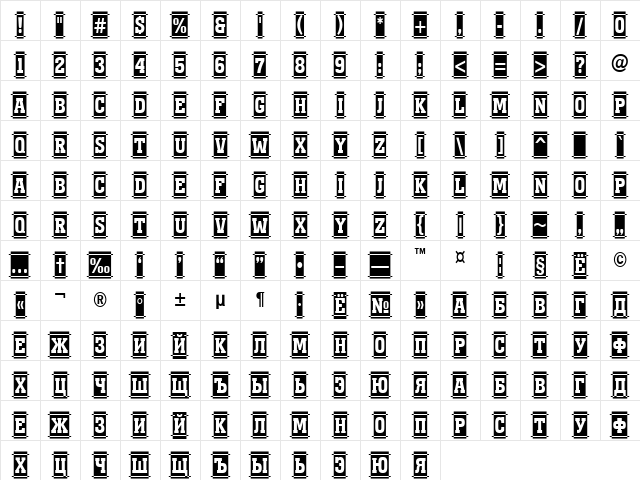
a_MonumentoTtlNrDcCm Normal Free Font
a_MonumentoTtlNrDcCm Normal
Design Context for a_MonumentoTtlNrDcCm
a_MonumentoTtlNrDcCm is a composed and adaptable typeface that performs quietly and consistently across a wide range of design contexts.